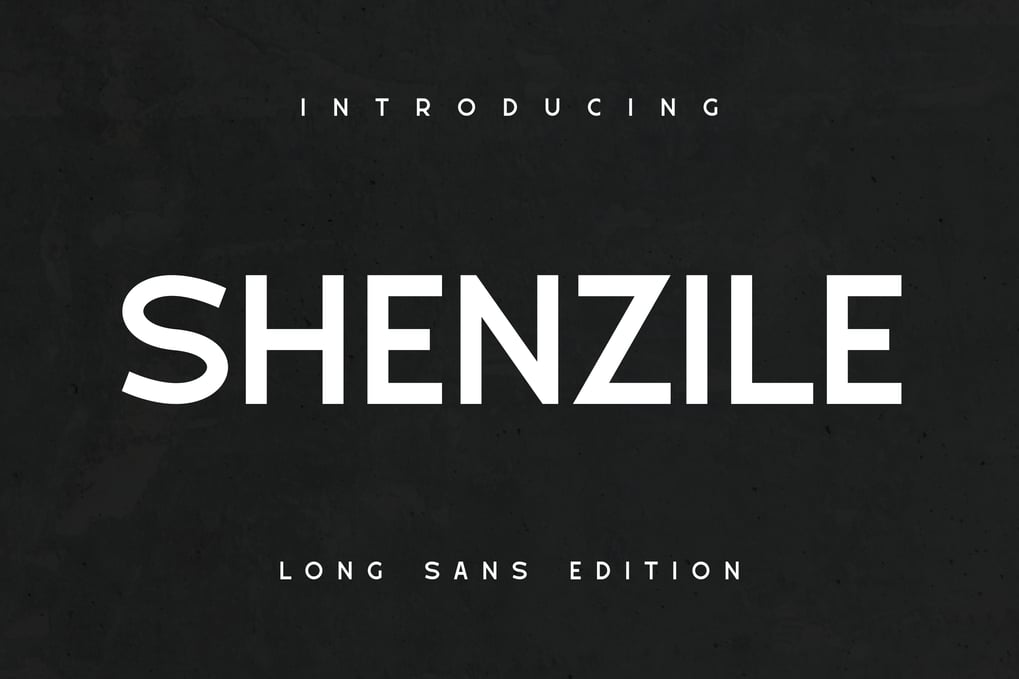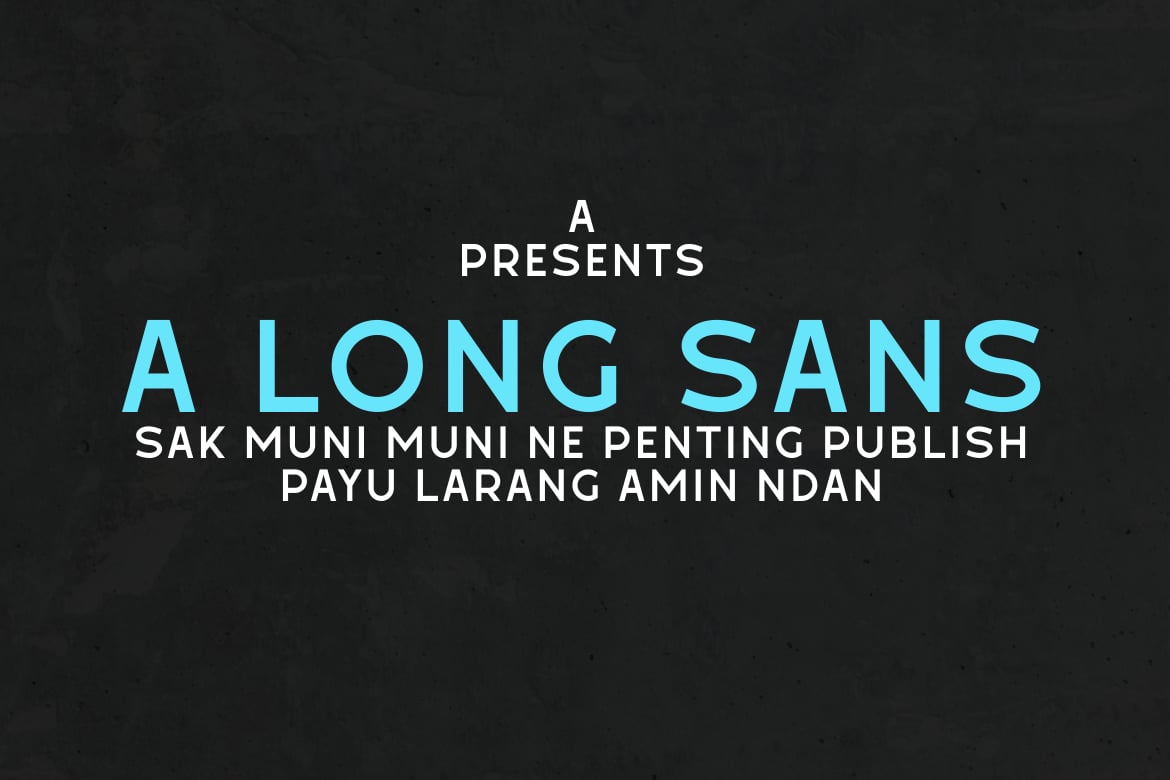
Shenzile Font
Introducing Shenzile – your next favorite font! Shenzile strikes an exceptional balance with its elongated glyphs that embody a fascinating mixture of techno and sans font styles. Tailored for versatile use, this font can effortlessly enhance the casual vibe of your designs or bring life to your titles. Its versatility ensures seamless integration, regardless of your project’s theme. Embrace the uniqueness of Shenzile and let your creativity run wild.